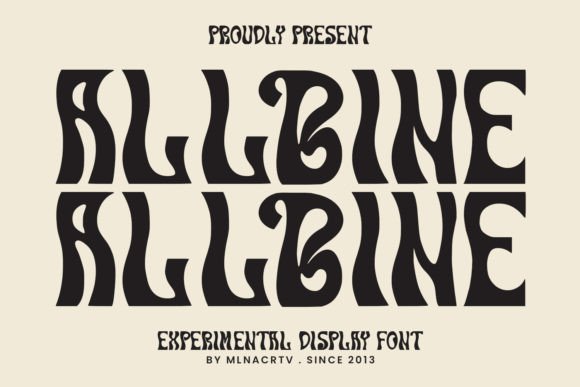
Indulge in the captivating realm of Allbine, an experimental display typeface that unleashes a symphony of visual wonders. Each stroke dances with joy and fluidity, adorned with playful ligatures and tantalizing alternates. Like a playful sprite, Allbine tiptoes through your designs, leaving a trail of enchantment. Embrace the allure of Allbine and embark on a typographic adventure that transcends the ordinary.
Harnessing the power of over 100 languages, Allbine effortlessly transcends linguistic boundaries, becoming a universal language of expression. Its boundless versatility makes it a chameleon in the design world, morphing seamlessly from captivating logos to eye-catching social media posts. Let Allbine ignite your imagination and craft movie titles that dance on the silver screen or book covers that whisper secrets. Its adaptability extends to short and epic texts alike, captivating readers with its grace and charm.
Pair Allbine with the elegance of a script or the sophistication of a serif, and witness the magic unfold. Its harmonious nature will elevate your designs to breathtaking new heights, leaving an unforgettable mark on the hearts and minds of your audience. Embrace the transformative power of Allbine today, and let your creativity soar to unimaginable heights!